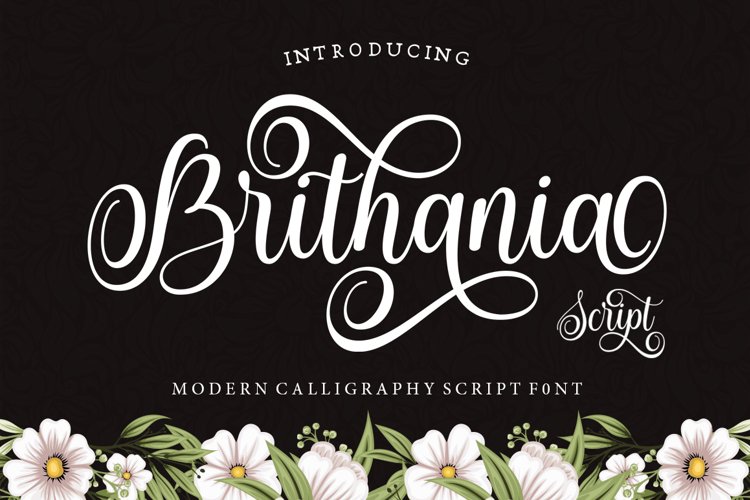
Brithania Script! Fresh, modern handwritten font with decorative characters and eye-catching baselines. Very beautiful for invitations such as crafts, greeting cards, branding materials, business cards, quotes, posters and other design concepts.